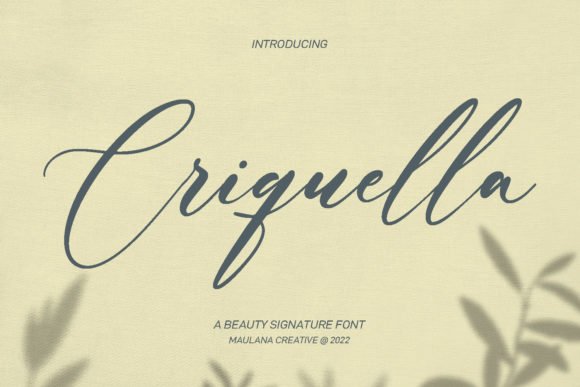
Unleash Your Creativity with the Allure of Criquella Script Font
There’s nothing quite like the thrill of a blank canvas, waiting for your creative touch. It’s that moment when the possibilities are endless, and your imagination knows no bounds. For designers, this feeling is a daily occurrence, and it’s what drives them to push the limits of innovation. Whether you’re crafting a logo, designing a wedding invitation, or creating a social media post, the right font can make all the difference.
Enter the Criquella Script Font, a stunning script font that’s sure to capture your heart. With its elegant, flowing lines and sophisticated style, this font is perfect for adding a touch of sophistication to your designs. And with its PUA encoding, accessing all the glyphs and swashes is a breeze, giving you the freedom to create truly unique and beautiful designs.
Criquella Script Font Key Features
- Font Type: Script font with a beautiful, elegant, and cursive design.
- Unique Characteristics: Features a unique blend of classic and modern elements, with flowing lines and subtle flourishes that add a touch of sophistication and elegance to any design.
- Legibility and Readability: Designed for optimal legibility and readability, with clear letterforms and a comfortable x-height that makes it easy to read even in small sizes.
Criquella Script Font Review
I recently had the chance to work with the Criquella Script font, and I must say it’s a lovely addition to any design project. ✨ Here are some of its strengths and weaknesses.
- Unique Elegance – Criquella Script has a beautiful, elegant feel to it, perfect for adding a touch of sophistication to any design.
- Good Legibility – Despite its script nature, the font is still quite legible, making it suitable for both body text and headings.
- Versatile – Criquella Script works well in a variety of contexts, from formal invitations to casual greeting cards.
- Limited Font Sizes – The font can become quite difficult to read at very small sizes, which may limit its use in certain applications.
- No Italic or Bold Variants – Criquella Script only comes in a regular weight, which can make it harder to create emphasis or variety in your designs.
While Criquella Script has some limitations, its unique charm and good legibility make it a solid choice for many design projects. I would definitely consider using it again in the future, especially for projects that require a touch of elegance and sophistication.
Criquella Script Font is ideal for creative and elegant designs. Use it for:
– Social media graphics and ads
– Quotes and typography-based art
Experiment with different font sizes, colors, and styles to get the most out of Criquella Script Font.
Alternatives to Criquella Script Font
Great Vibes is a modern script font that conveys a sense of elegance and sophistication. It’s ideal for use in titles, headings, and logos where a touch of luxury is desired. Great Vibes is similar to Criquella Script Font in its flowing, handwritten style, but has a more refined and polished feel.
Carolyna Pro is a high-end script font that exudes glamour and sophistication. It’s perfect for use in high-end branding, fashion, and luxury goods where a touch of opulence is desired. Carolyna Pro has a similar feel to Criquella Script Font, but with more dramatic flair and a more extensive character set.
Literata
Literata is a beautiful script font that combines elegance with a touch of whimsy. It’s ideal for use in titles, headings, and body text where a sense of personality is desired. Literata is similar to Criquella Script Font in its flowing style, but has a more relaxed and casual feel.
Q: What is the recommended font size for Criquella Script?
The recommended font size for Criquella Script is between 12 and 24 points, depending on the project requirements and the desired level of legibility. At smaller font sizes, the font may become too dense and difficult to read. At larger font sizes, the font may become too overwhelming and lose its elegance.